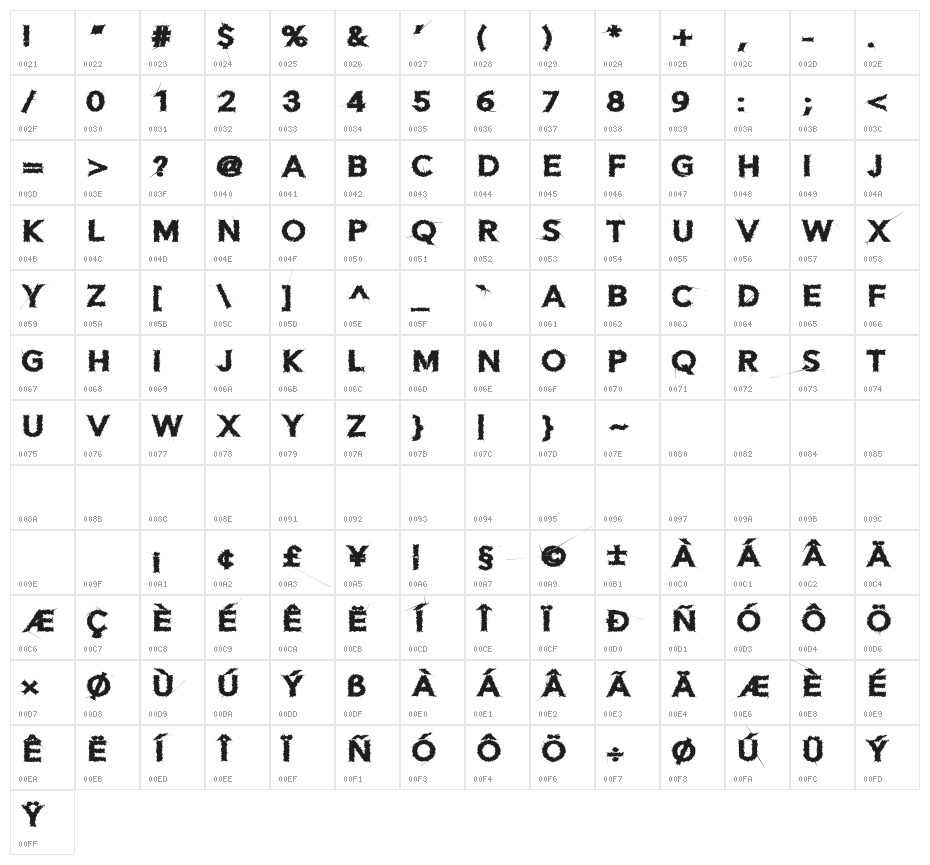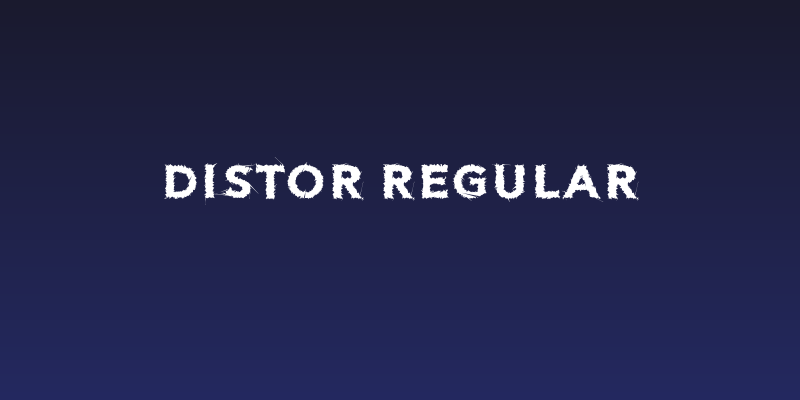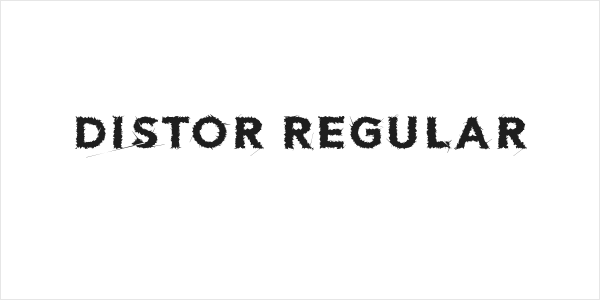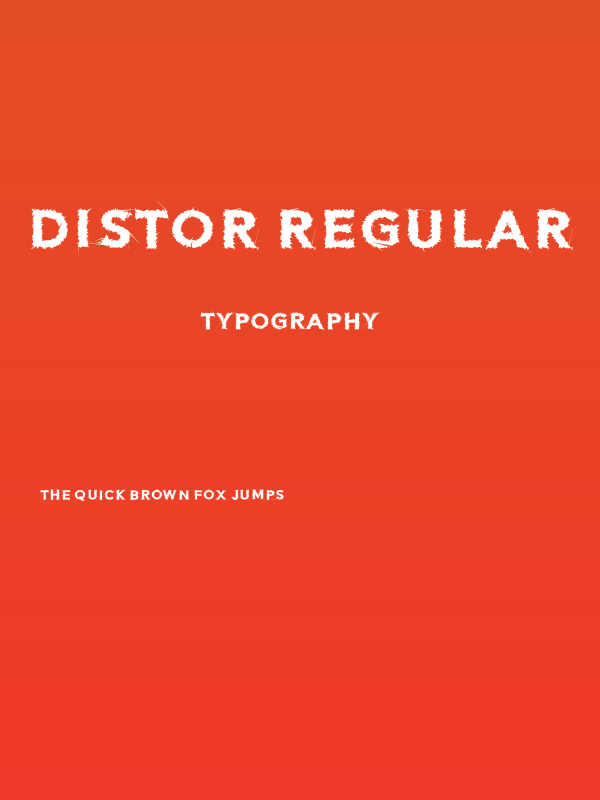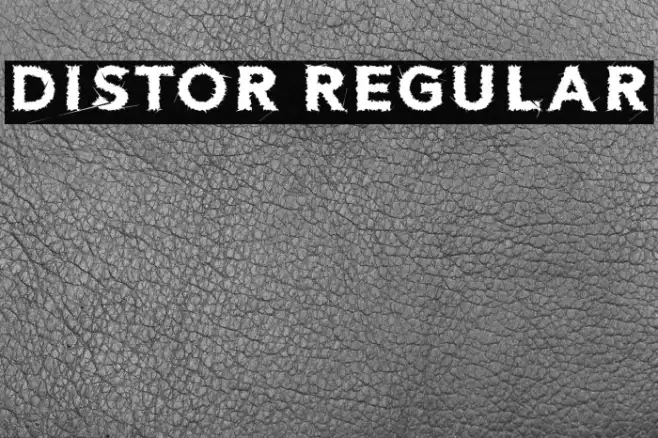
Distor Regular Font
Distor Regular Description
This font features a highly distinctive and edgy design, characterized by its jagged, irregular edges that give it a chaotic and dynamic appearance. The letterforms are bold and impactful, with each character appearing as if it has been torn or shredded, adding a sense of movement and energy. The uppercase and lowercase letters maintain a consistent style, while the numerals and special characters follow the same rugged aesthetic. This font is perfect for projects that require a bold statement or a sense of rebellion and nonconformity.
| Overall Style | Modern, Edgy |
| Proposed Projects | Ideal for album covers, posters, or any design needing a rebellious and dynamic look. |